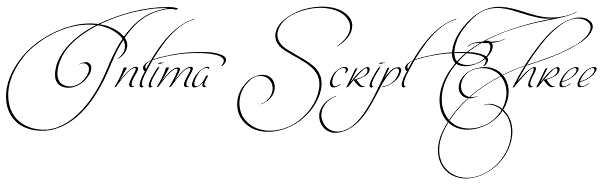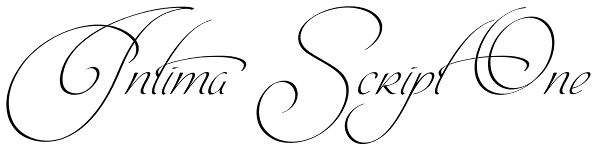
Intima Script
A sensual typography designed by Lián Types. Very suitable for wedding invitations or sensitive pieces of design. Intima is divided in 3 different styles. User may use them at the same time, making totally original cards, combining and mixing the...